Modern script fonts have become a go-to choice for designers who want to bring elegance, personality, and a handcrafted feel into their work. These fonts combine the charm of calligraphy with a clean, contemporary twist. In this article, we’ve rounded up some of the most beautiful fonts that are perfect for adding style and sophistication to any creative project.
- Script fonts add elegance and personality to any design.
- They’re perfect for branding, invitations, and creative projects.
- Choosing the right font can enhance your visual impact effortlessly.
Best Modern Script Fonts to Elevate Your Design
Script fonts have become a favorite among designers for their ability to blend elegance, style, and personality in one graceful typeface. They bring the handcrafted charm of calligraphy into a fresh and modern context. This feature makes them an irresistible choice for anyone looking to elevate their design work with a touch of sophistication.
1. Me Amanda
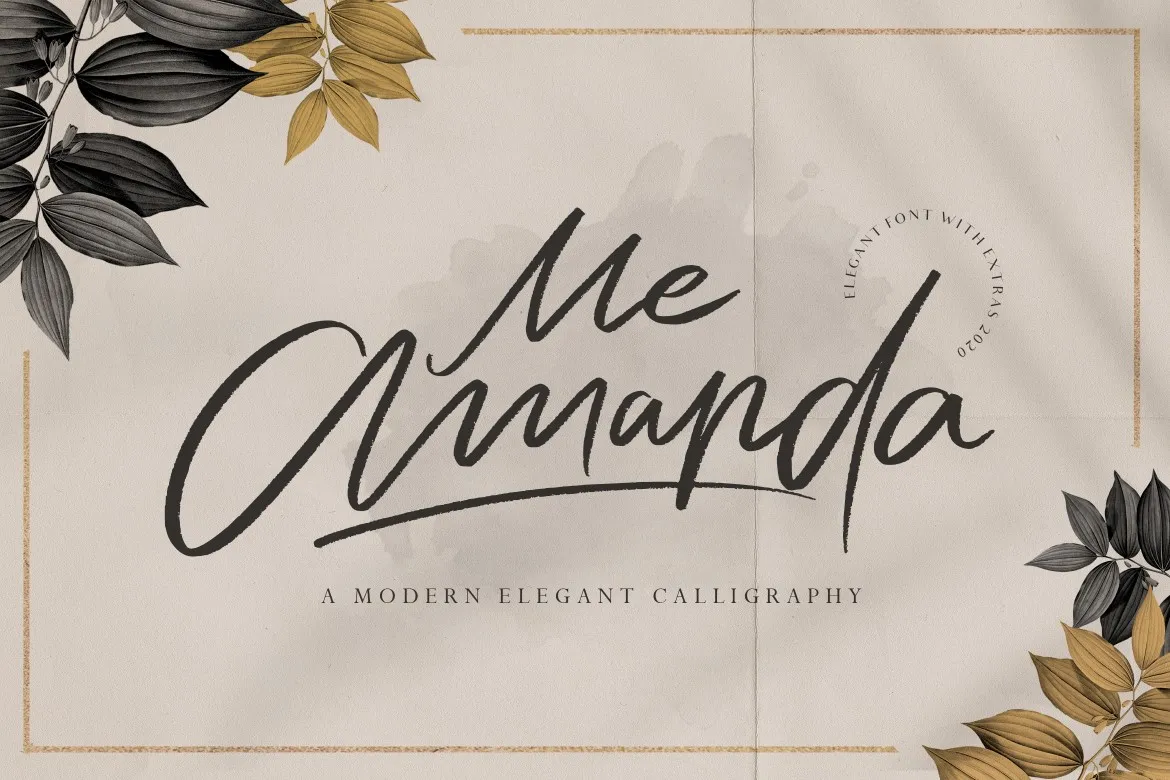
This beautifully feminine script font features smooth, flowing lines with elegant details that bring a modern touch to wedding invitations, beauty product packaging, or branding projects.
2. Link Heart Font Duo
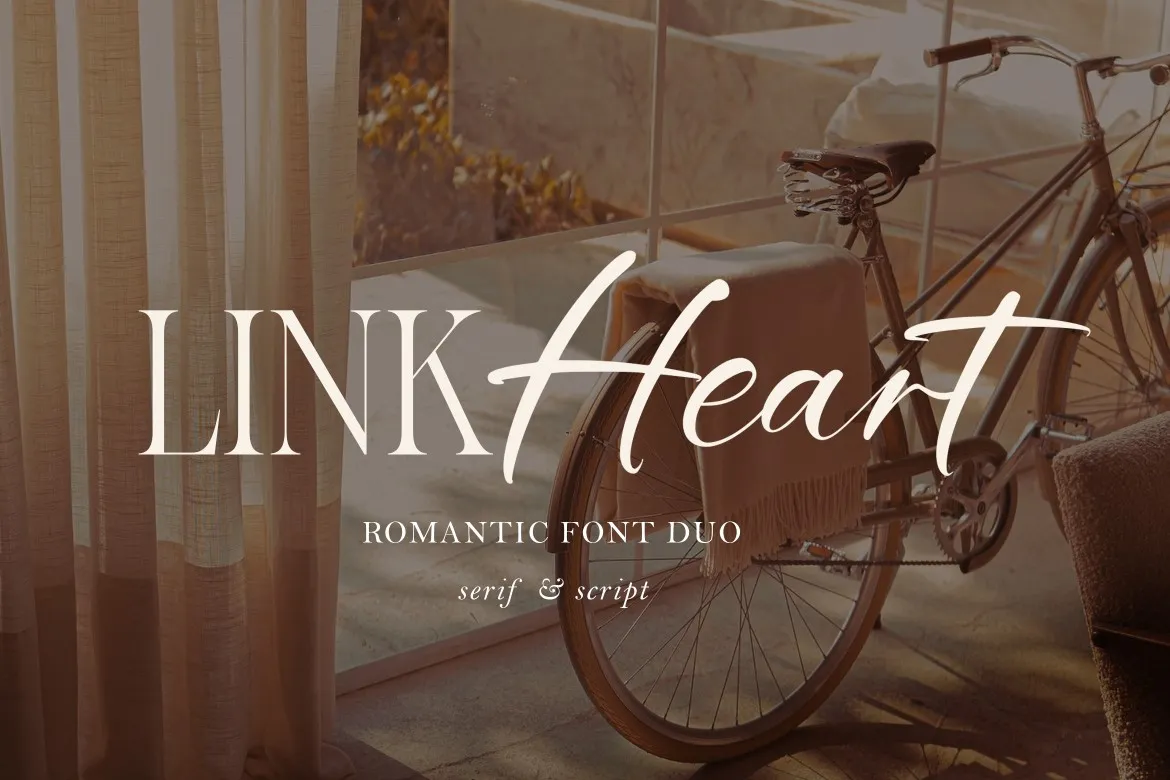
Easily adds a personal and sweet touch to your design with its flowing style and soft curves. The mix of script and serif makes pairing easy for any design that needs a lovely, polished look.
3. Mother Shopping
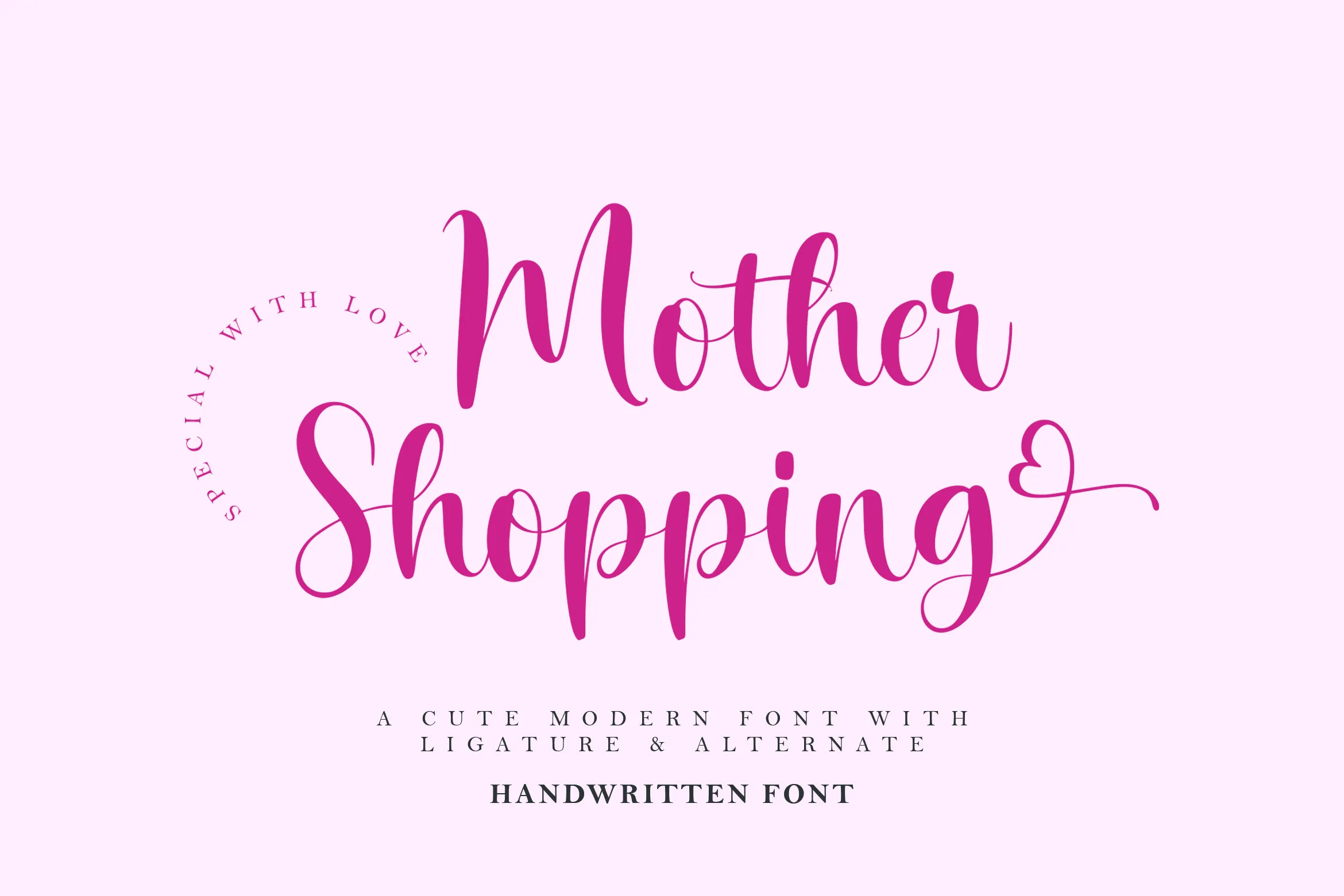
If you want a font with a flowing style and elegant curves, pick this! It reflects the charm of cool modern script fonts, with each letter carefully crafted to create a graceful and sophisticated look for stylish design projects.
4. Ausberg
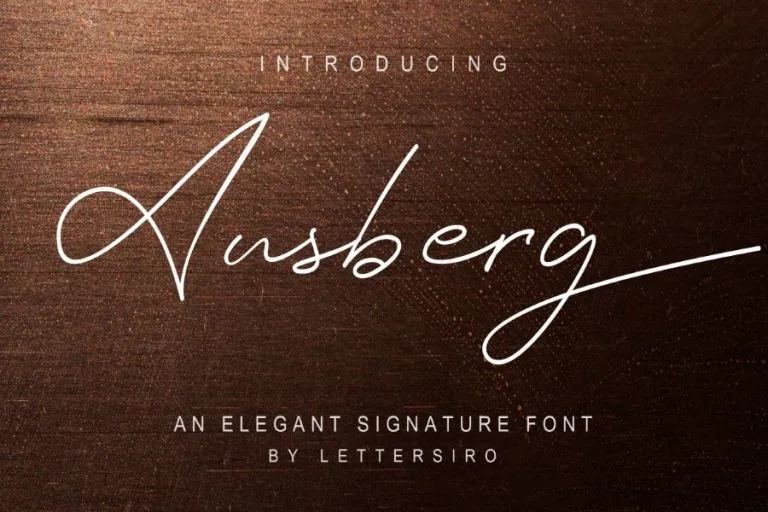
Ausberg is a striking serif font that blends modern style with a hint of timeless elegance. It has sharp edges and crisp lines for a clean, professional feel.
5. Audhistine
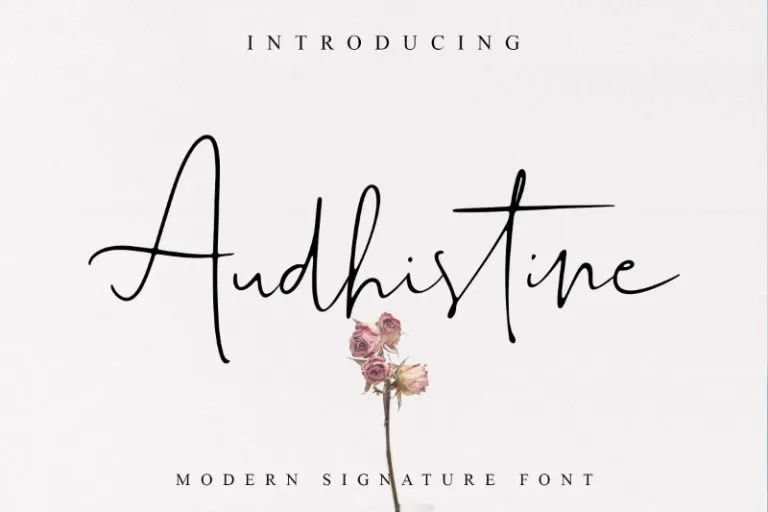
Here is a personal, artistic, and effortlessly beautiful font. Its flowing lines and elegant curves capture the charm often found in modern script fonts, giving real handwriting and elegance at once!
6. Hello Santuy
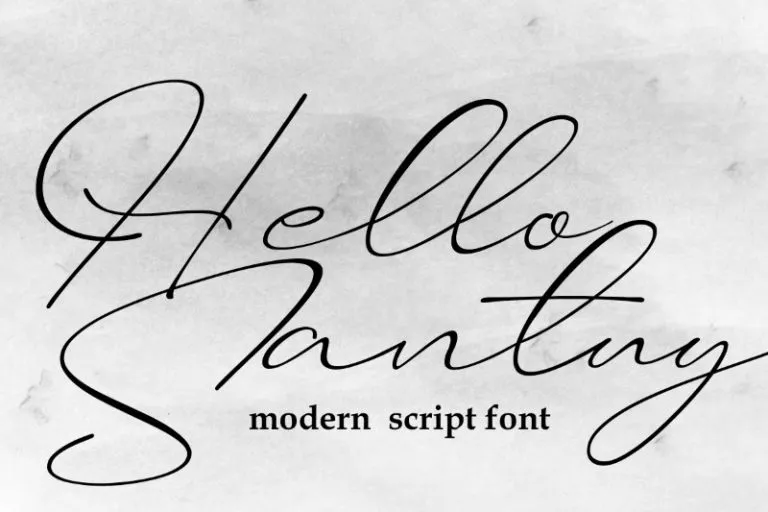
This font adds just the right mix of playfulness and warmth to make your message stand out. Use it when you want to bring a relaxed and approachable feel to your design.
7. Stella Wilson
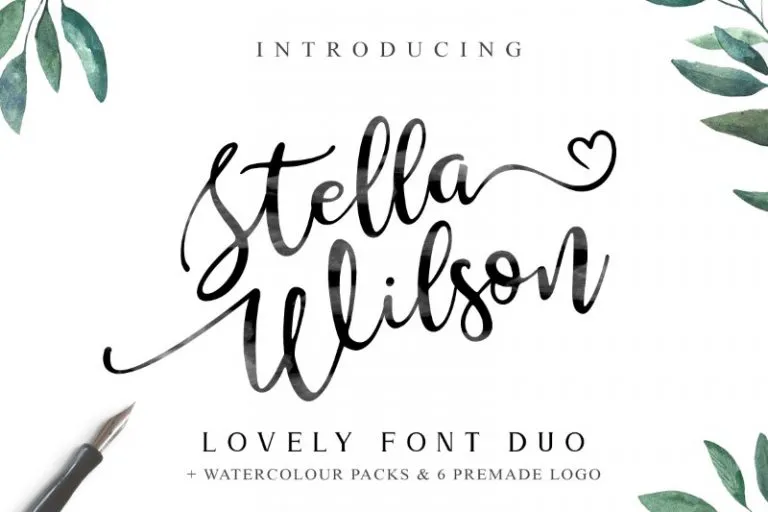
The smooth flow of each letter adds a personal and romantic touch to any design, giving it a classy yet approachable feel. It feels natural and graceful for stylish branding, especially for a wedding invitation.
8. Maillove
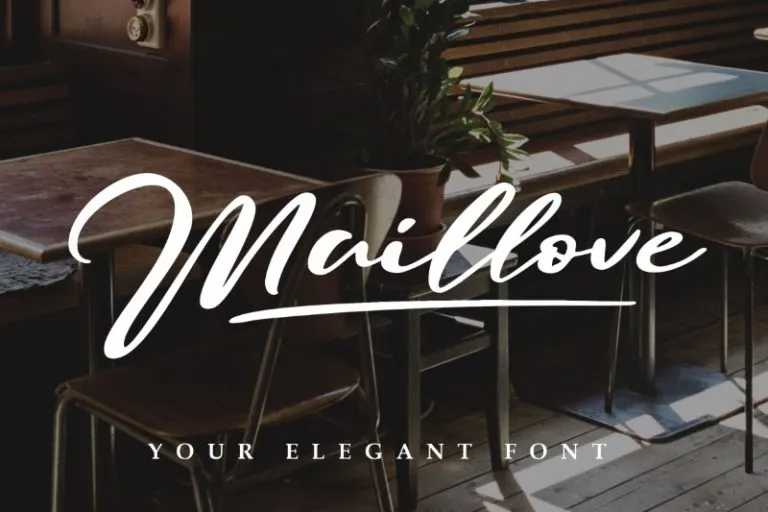
Let’s have this font for those who need a soft, elegant touch and a romantic vibe. Its smooth, flowing strokes will easily bring warmth and personality to your projects.
9. Brown Chocolatte
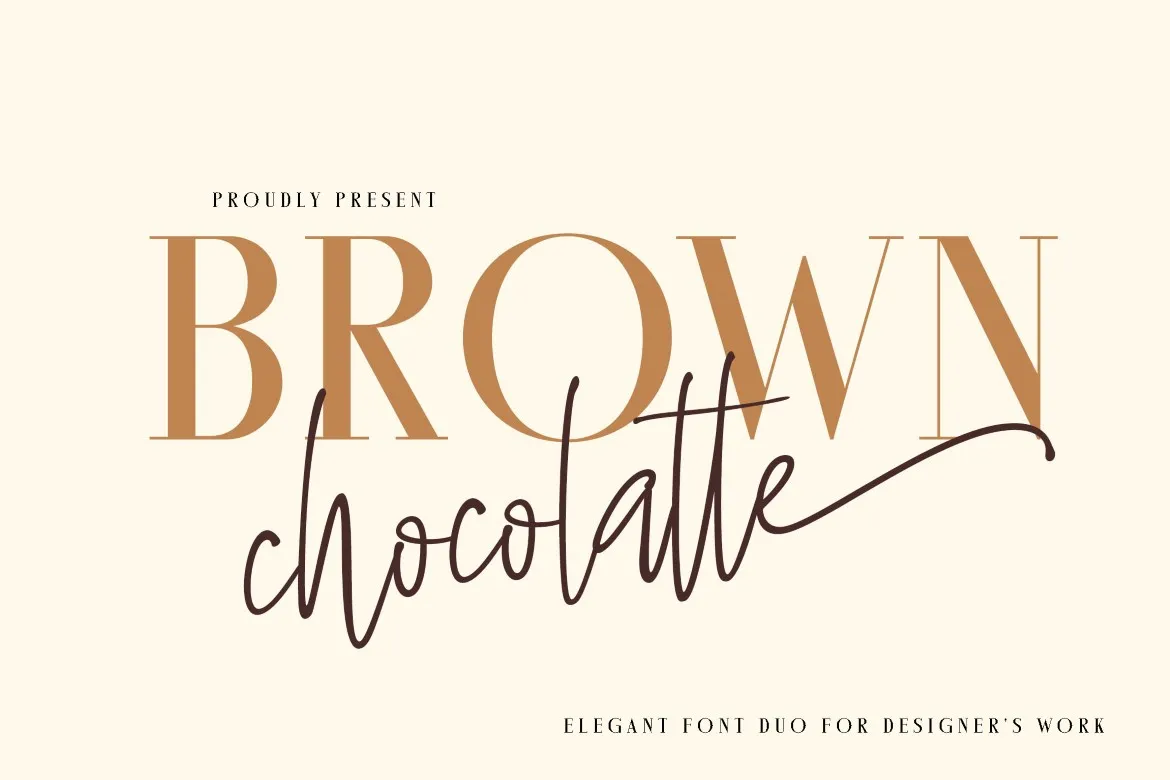
The script style reflects the charm found in some of the best modern script fonts, adding a personal touch, while the sans-serif keeps everything looking clean and contemporary.
10. Holland Elegant Font
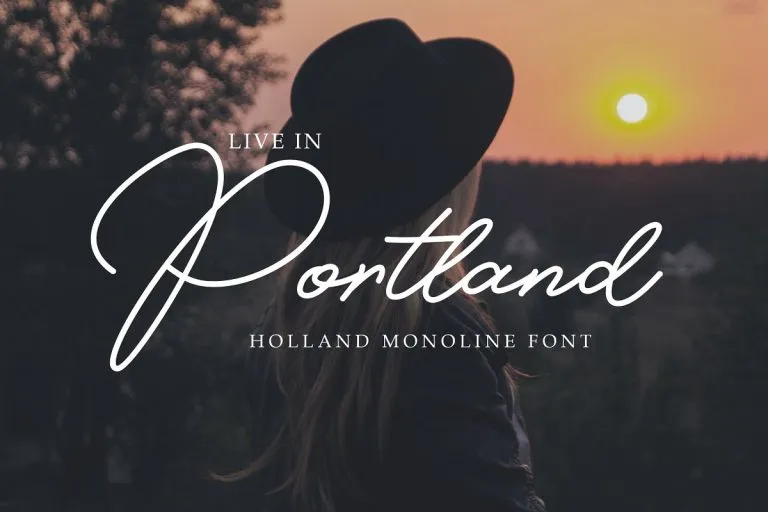
If you want your visuals to feel polished and memorable, Holland is a go-to choice. It brings a perfect mix of elegance and personality, featuring signature-style strokes that add a luxurious and handcrafted feel.
11. Amsterdam 8 Fonts
Chic, clean, and confidently stylish! It is completed with a signature look that speaks luxury without saying a word. This professional-looking script font adds just the right amount of class to make your work stand out.
12. Blinkwomen
Blinkwomen is a standout example of a modern script font with a casual calligraphy style and a personal touch. Featuring elegant and hand-lettered strokes, it’s perfect for signatures, branding, quotes, and creative design projects.
13. Bellova
Designed to feel both personal and stylish, Bellova brings a relaxed yet refined look to any project to feel authentic, modern, and memorable.
14. Paladise
Paladise blends vintage charm with contemporary flair through its bold, flowing curves and nostalgic character. It offers typography full of personality and style.
15. Bella Hanna
It is a chic, beautiful modern script font with graceful hand-lettered strokes and a soft, feminine flair. Blending beauty and personality, it brings a touch of sophistication to every project.
16. Reileigh
It is an elegant modern script font that combines sleek curves and confident strokes to create a bold, sophisticated look. This typeface adds character and refinement to any project, making it ideal for branding, logos, or upscale editorial use.
17. Raster Slice
Raster Slice is a striking brush script with an edgy, handcrafted style. Its bold strokes, dry texture, and dynamic flow give your designs a raw, energetic vibe.
Choosing the Right Modern Script Fonts